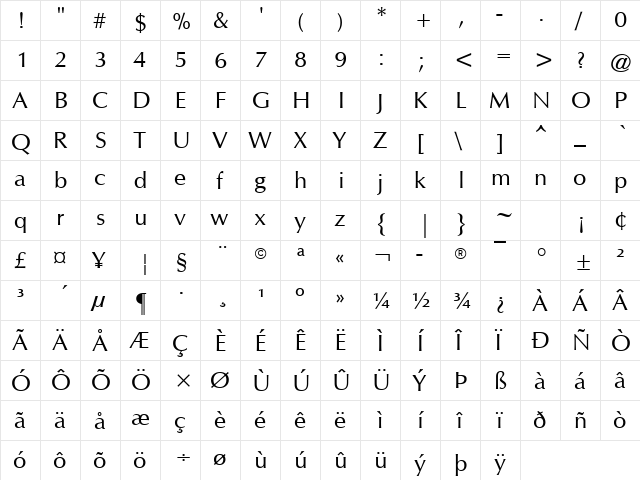
CG Omega Regular
Design Context for CG Omega Typeface
CG Omega takes a measured approach to typography — its balanced proportions and neutral character make it a reliable workhorse for both digital and print work.